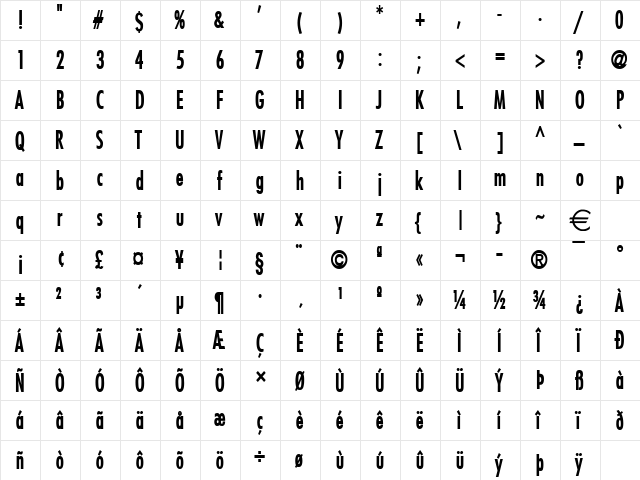
FujiCondensed Bold
Design Context for FujiCondensed Typeface
FujiCondensed is a composed and adaptable typeface that performs quietly and consistently across a wide range of design contexts. Its bold stroke weight gives it real presence on the page. The condensed width makes it efficient for tight spaces without sacrificing legibility.